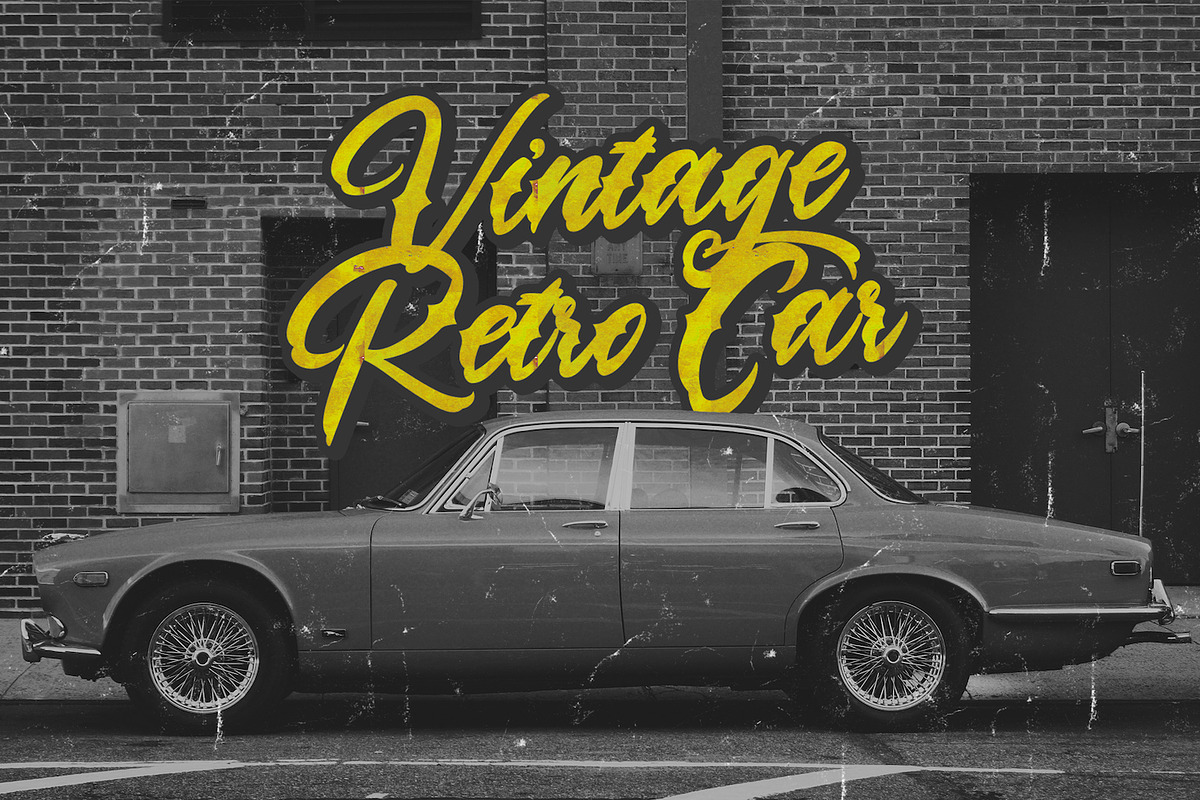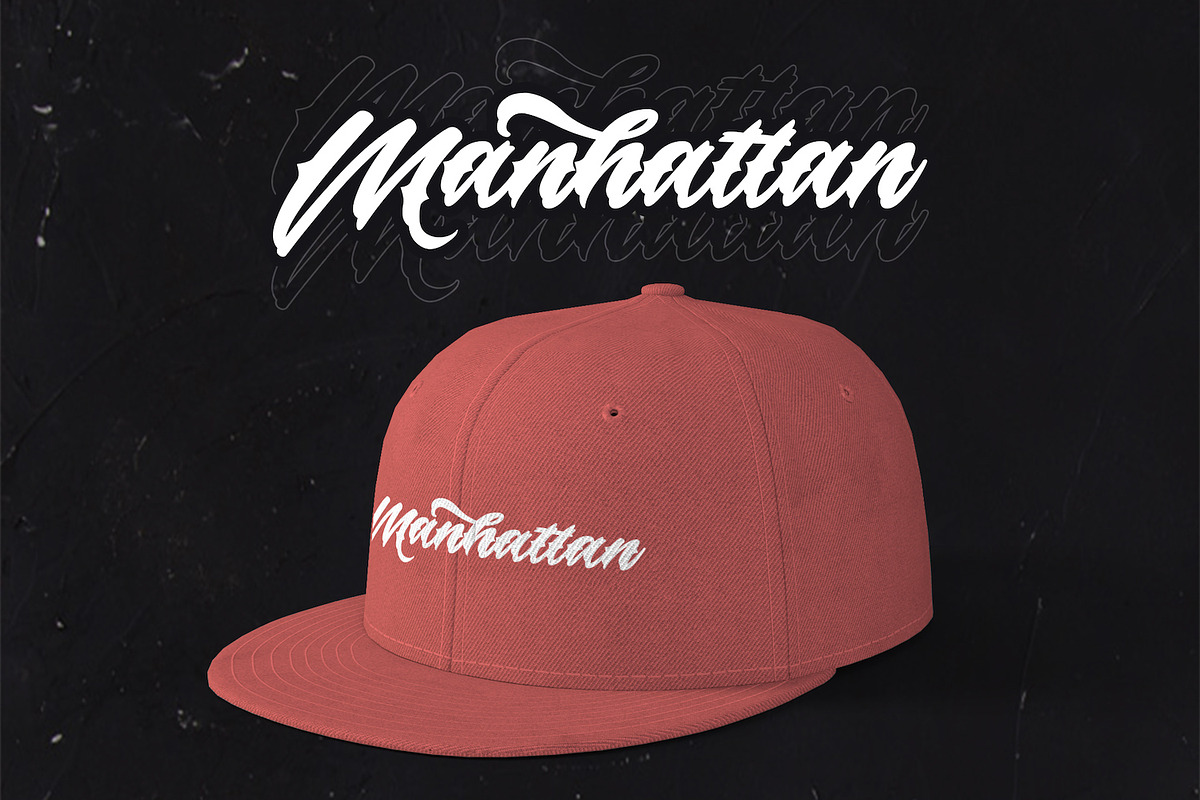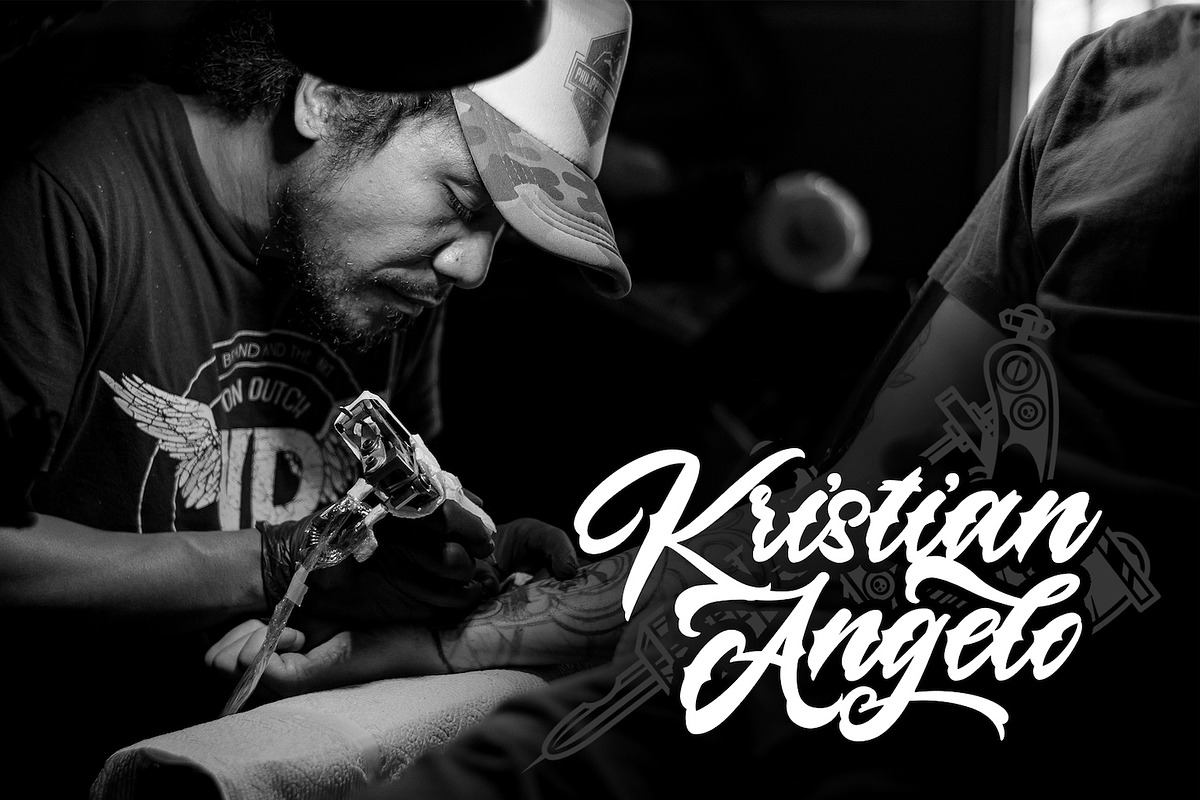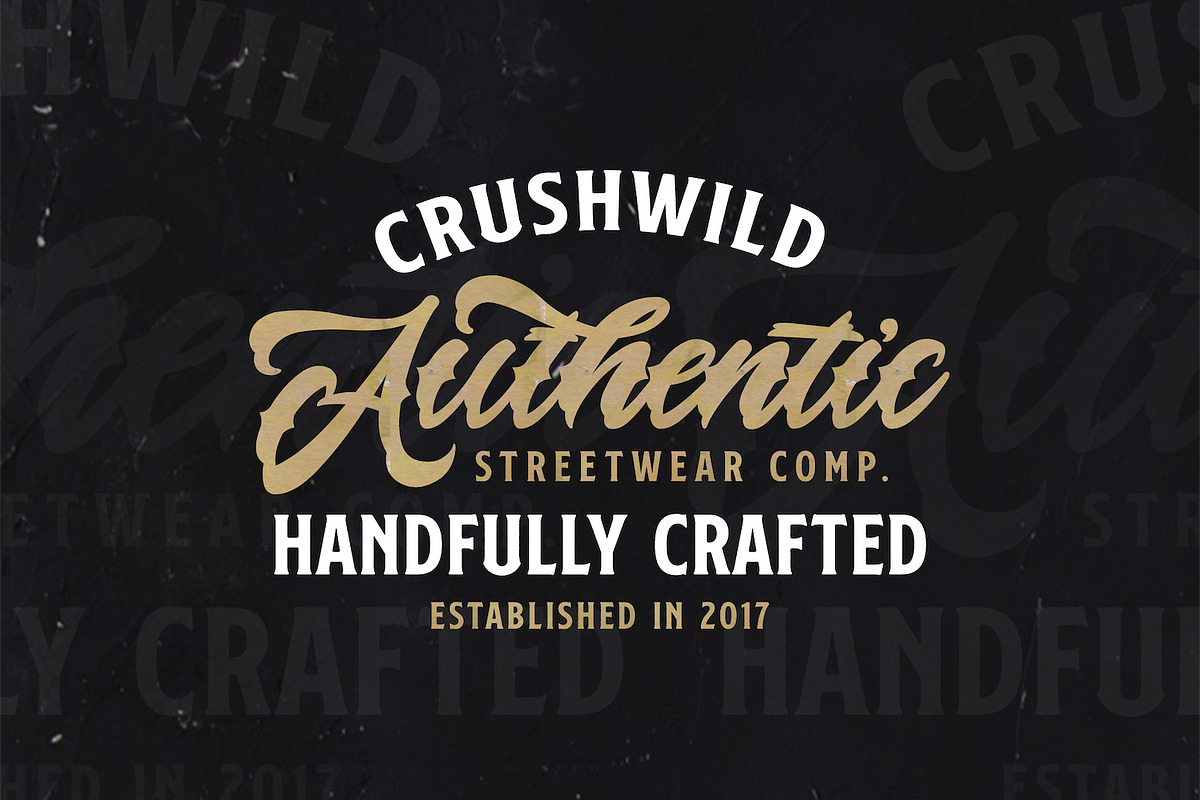
Lazyday - Bold Script Font
Introducing Lazyday - Bold Script Font
The Lazyday is a strong and bold script font. It’s curved and rounded in every single touch, and has an unique vintage and retro styles that’s perfect for branding.
Why Lazyday - Bold Script Font is worth a look
Lazyday - Bold Script Font by StringLabs fits naturally into Branding, posters, packaging, typography.